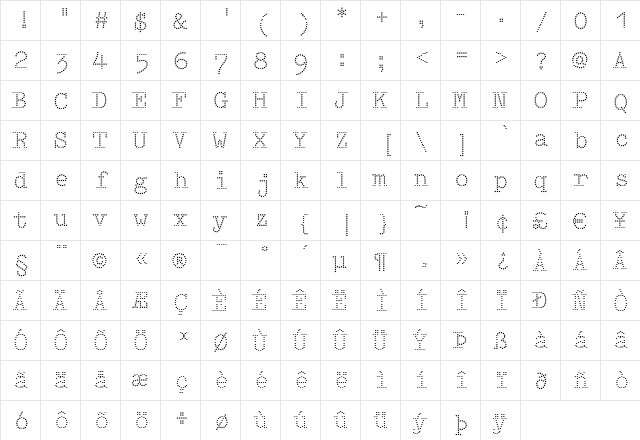
Intimo-Two Regular Font Preview
Intimo-Two Regular
Intimo-Two Regular Font Details
Design Context for Intimo-Two Typeface
Intimo-Two takes a measured approach to typography — its balanced proportions and neutral character make it a reliable workhorse for both digital and print work.